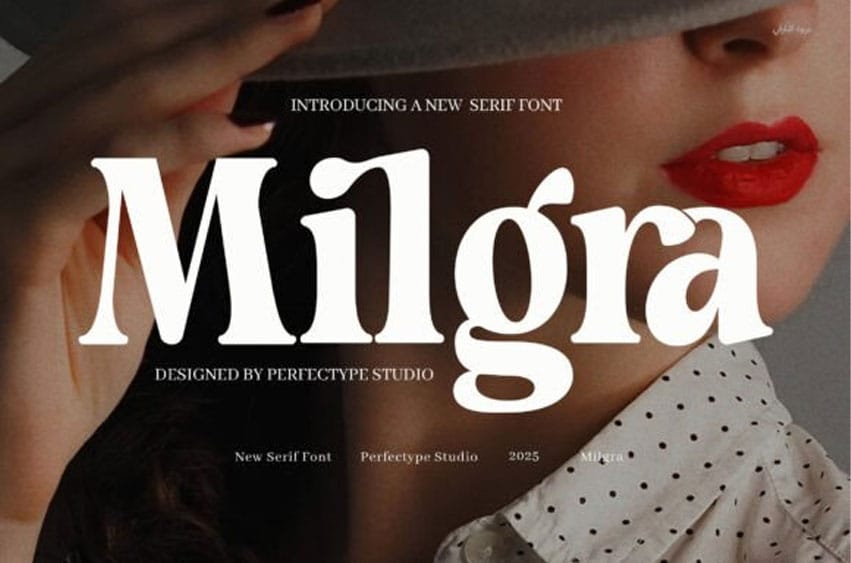
Milgra Font is a striking blend of graceful form and modern design, built to bring elegance, clarity, and sophistication to any visual project. Characterized by soft curves, high contrast strokes, and delicate detailing, Milgra is a serif font that feels both timeless and fashion-forward.
What truly defines Milgra is its sculpted letterforms—each glyph is meticulously balanced to offer a harmonious look, with gentle flared serifs and subtle angles that add a sense of movement and refinement. The font features a set of stunning ligatures and thoughtfully designed alternate characters, enabling endless possibilities for customization and creativity. These stylistic touches lend a luxurious, editorial feel that’s perfect for elegant branding and high-impact design.